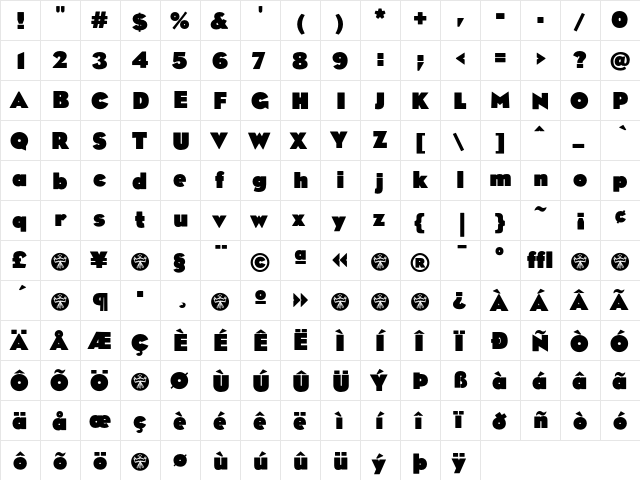
Eagle Black
Design Context for Eagle Typeface
Eagle offers clean, dependable letterforms without strong stylistic allegiance, making it a practical choice for designers who need flexibility.